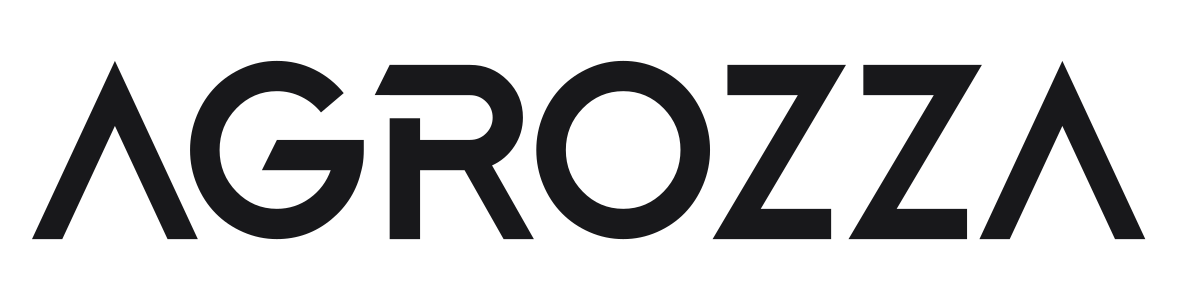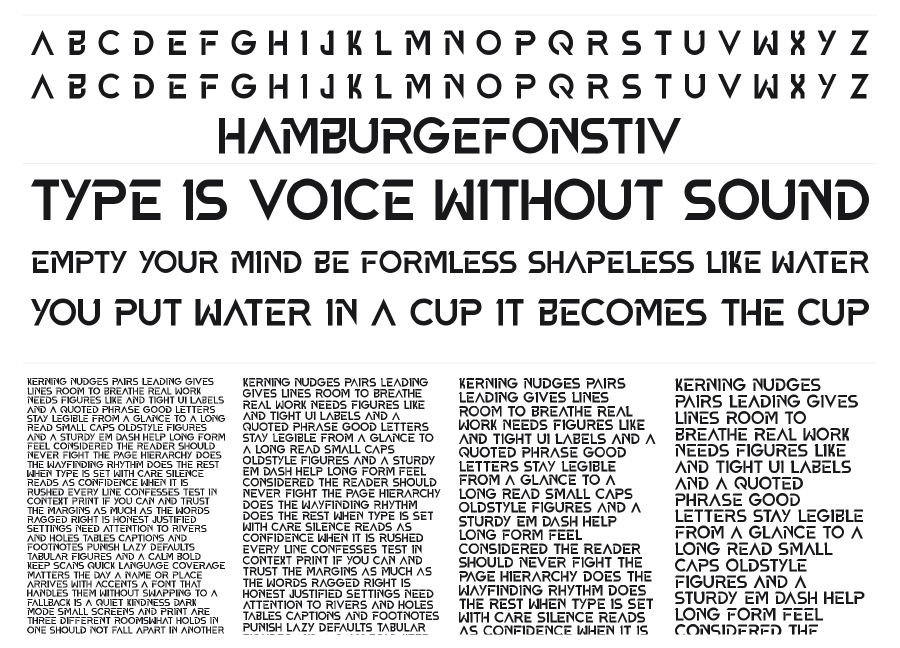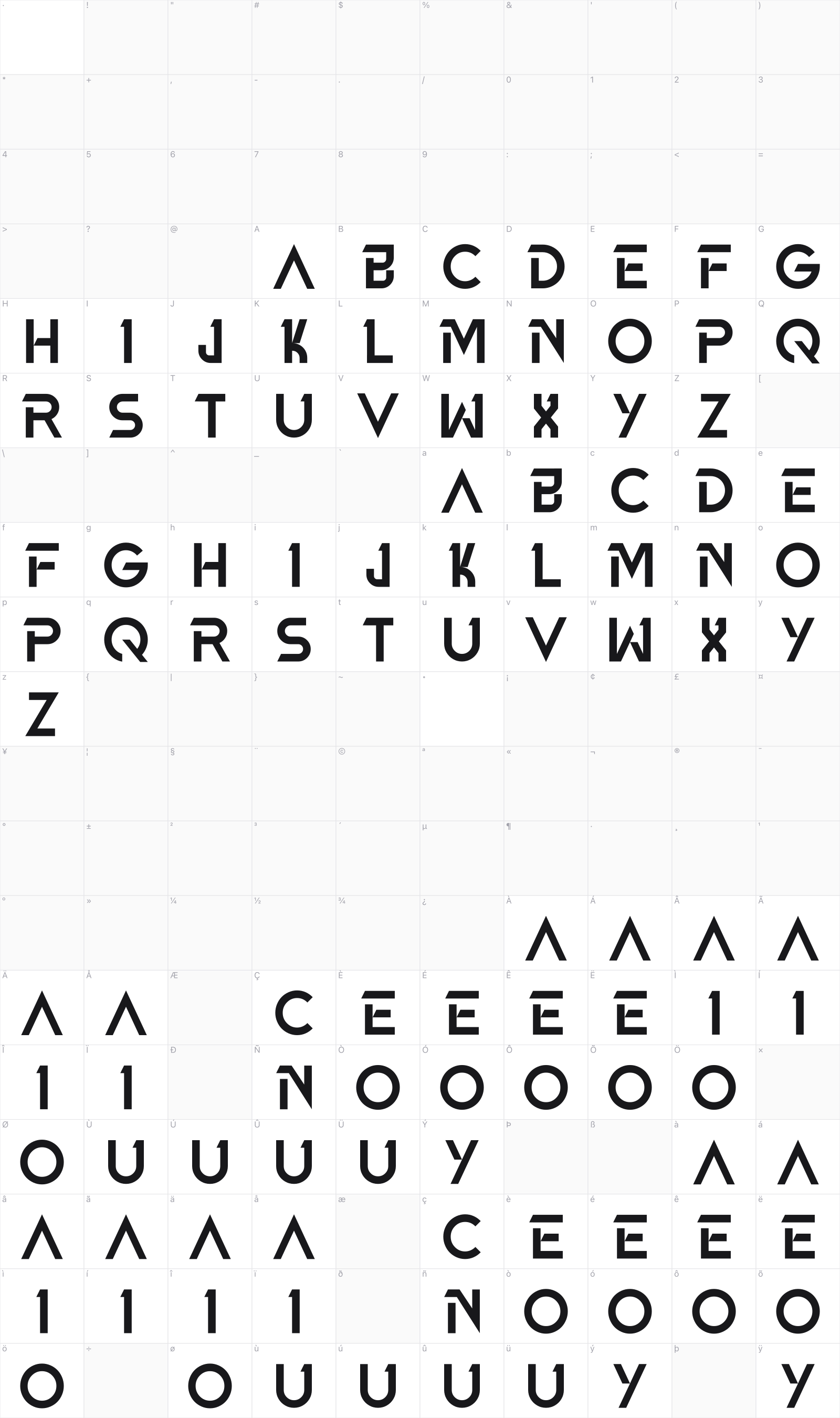
Agrozza
Agrozza is a wide geometric sans with a sci-fi edge, built from clean strokes interrupted by precise angular cutouts and notches. That segmented construction gives it a modular, machine-assembled quality that plain grotesques lack. Strong at large sizes for logos, headlines, and anything that needs a technology or gaming slant.